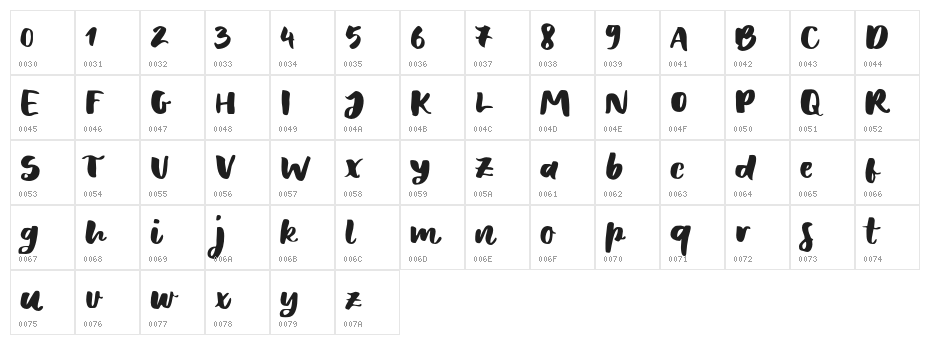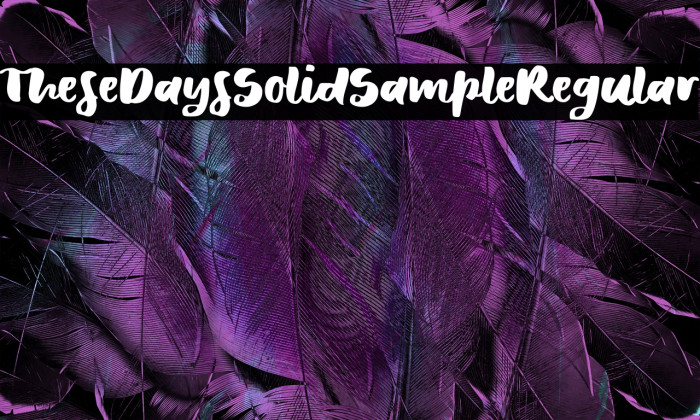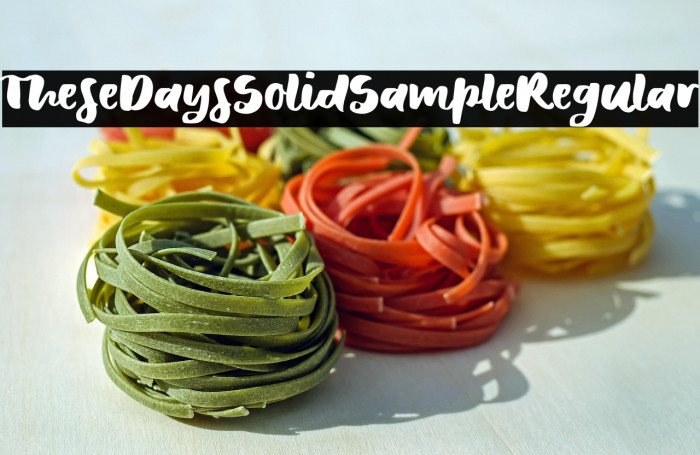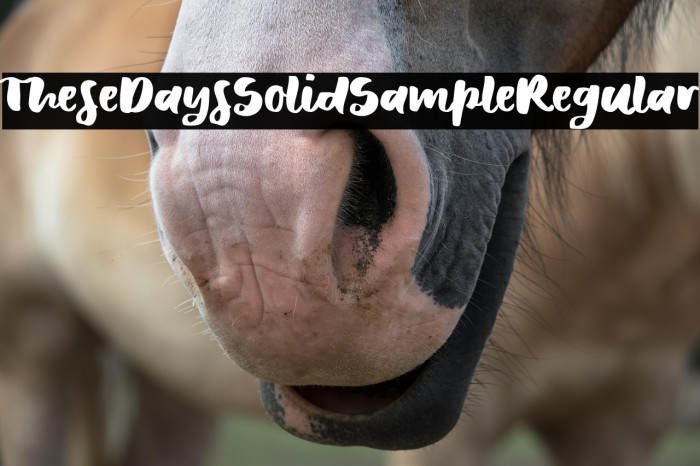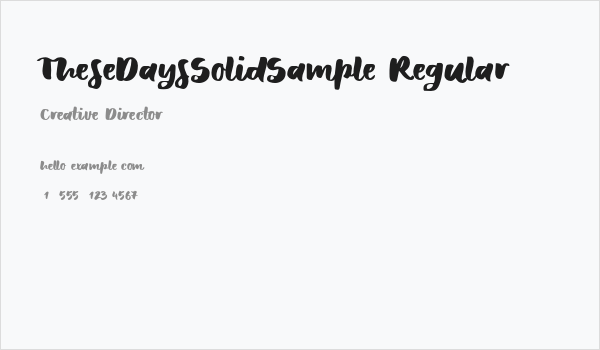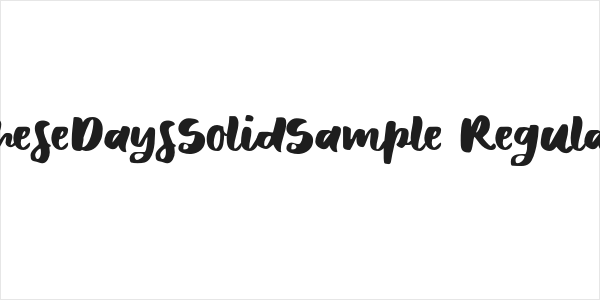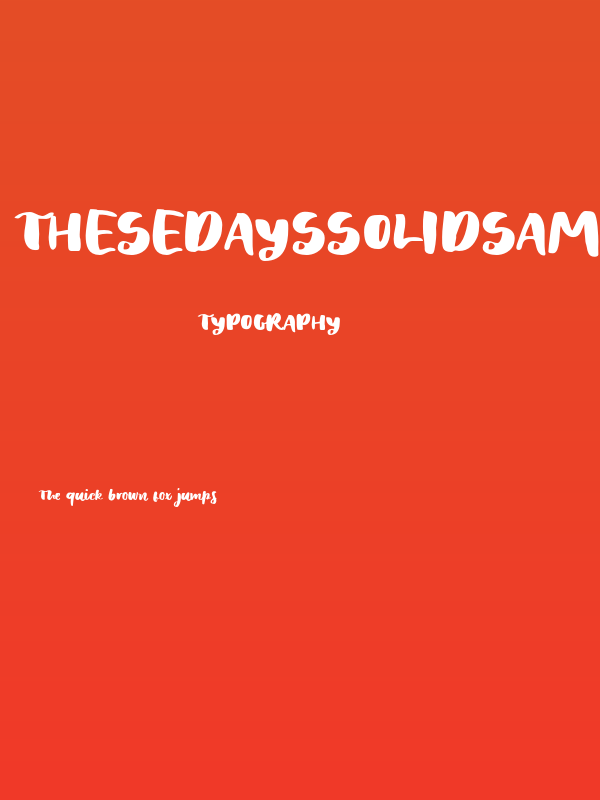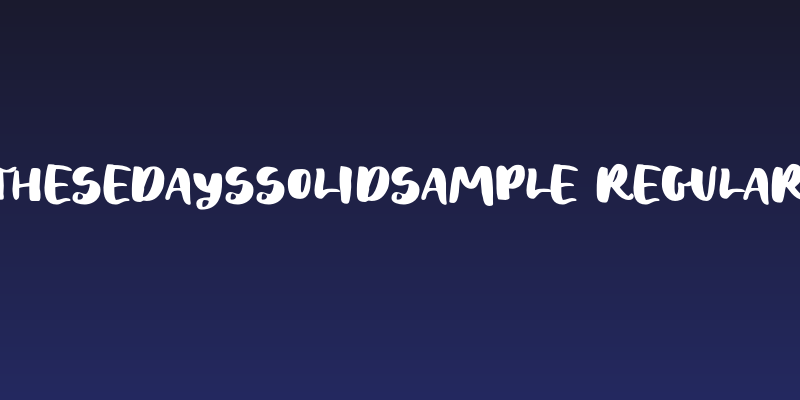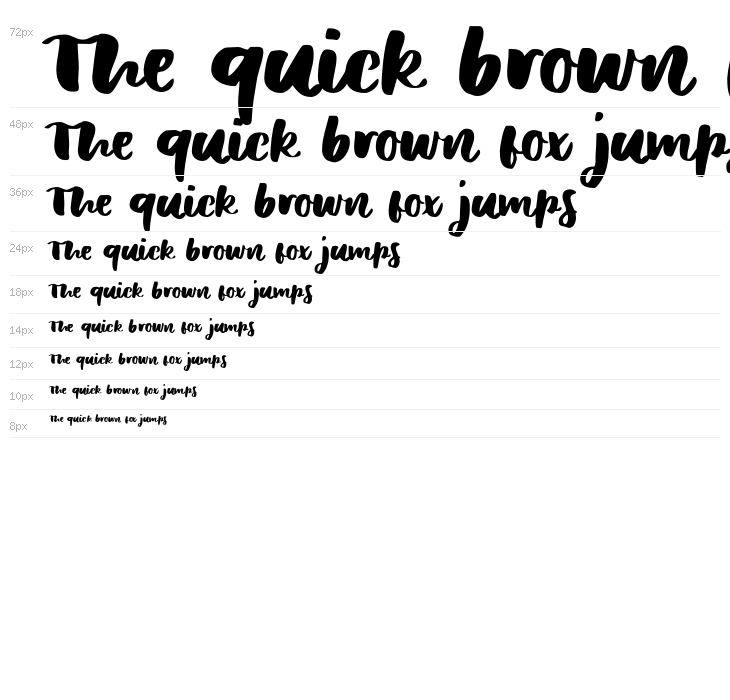
TheseDaysSolidSample-Regular Font
TheseDaysSolidSample-Regular Description
This font features a bold and expressive style with a handwritten appearance. The letters are thick and rounded, giving a playful yet assertive look. The uppercase letters are slightly more structured, while the lowercase letters exhibit a more fluid and dynamic form. The numbers maintain the same boldness, ensuring consistency across all characters. The special characters are designed to match the overall aesthetic, making them suitable for creative and informal designs. This font is ideal for projects that require a personal touch with a modern twist.
| Use Case | Logos, Headlines, Posters |
| Proposed Projects | Ideal for branding, posters, social media graphics, and invitations where a personal and modern touch is desired. |